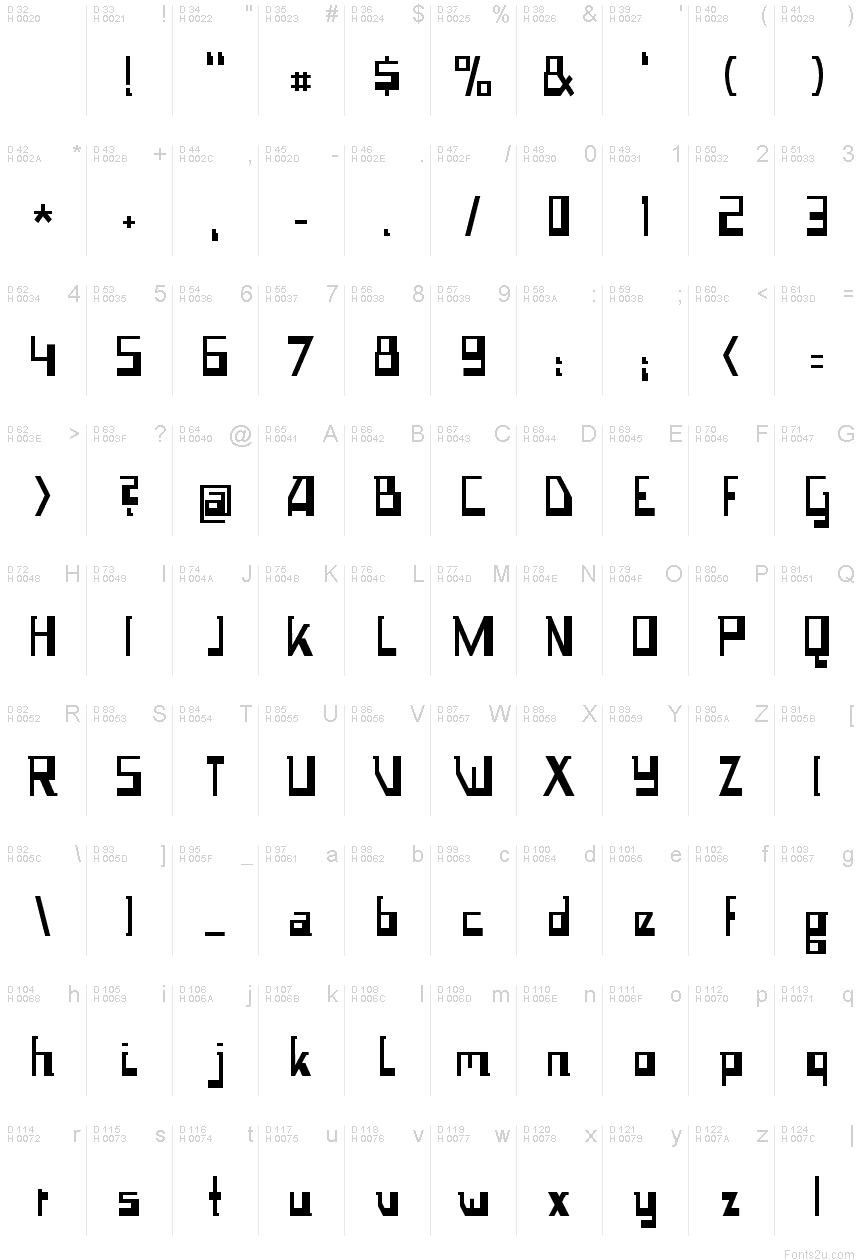
Space worm
Space Worm by Levi is a free angular techno display font with a clipped, sci-fi rhythm. The letters feel built from squared corridors and hard turns, mixing chunky verticals with open rectangular gaps that give the font a lean, machine-made pulse.
It fits naturally in game logos, electronic music flyers, poster headlines, zine covers, and title cards where a blunt futuristic voice helps set the mood fast. As a free font, it also works for short branding, interface-inspired graphics, and monograms, because those sharp corners and boxy openings keep even brief words feeling coded and mechanical.